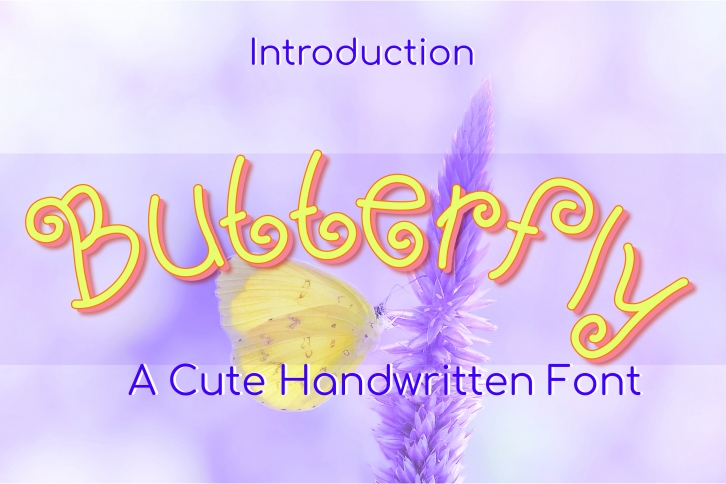
Butterfly is a cute and whimsical script font. Expertly designed to make your creation look out of this world, this font will look gorgeous on a variety of ideas.